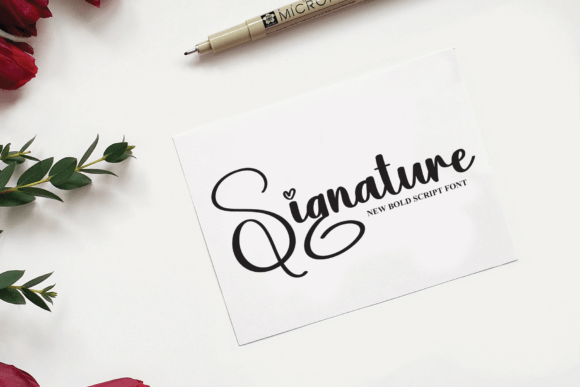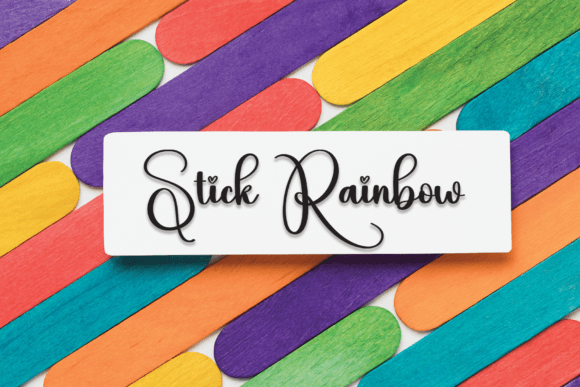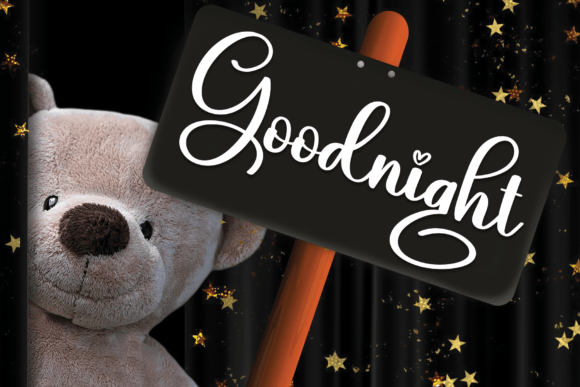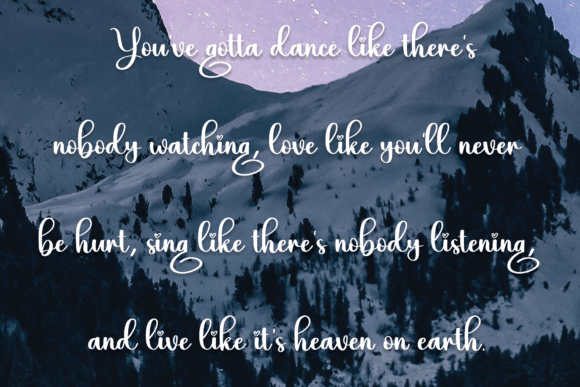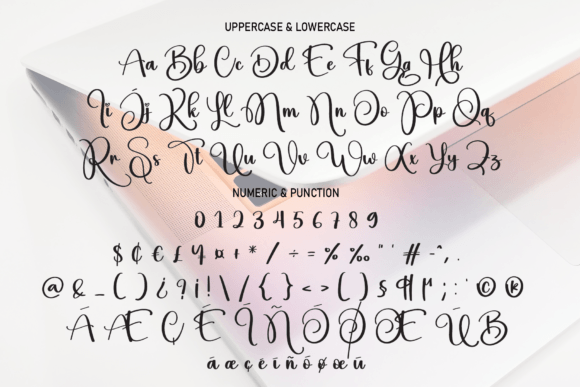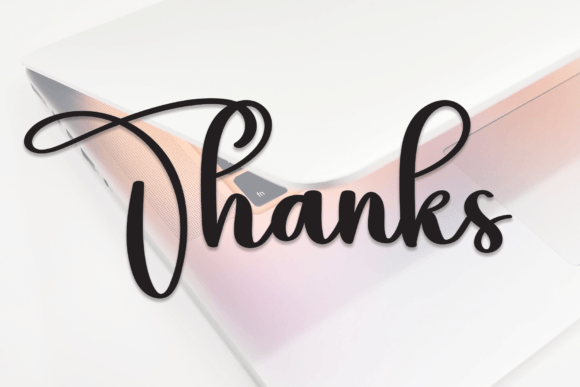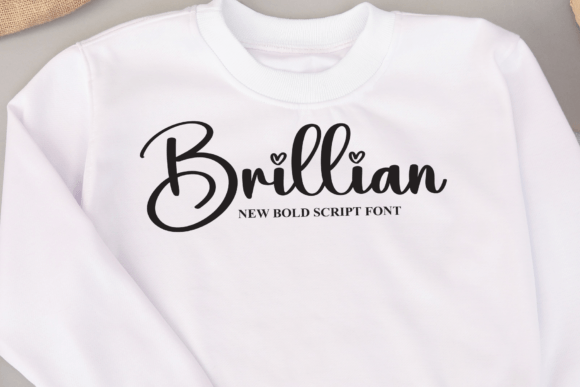
Digital Font
About Digital Font
Digital is a sweet and cursive handwritten font that adds a delightful touch to a variety of design ideas. With its gentle and romantic style, this font enhances the overall aesthetic of your projects, bringing a joyful and charming atmosphere. Digital is perfectly suited for branding, logos, wedding materials, greeting cards, fashion-related designs, lookbooks, marketing promotions, and any instance where you want to achieve a blend of fancy elegance and casual sophistication.
The sweet and cursive nature of Digital makes it an excellent choice for projects that require a touch of romance and whimsy. Whether you’re designing wedding invitations or creating a logo with a personal touch, Digital’s handwritten charm elevates the visual appeal.
Digital is versatile and fits seamlessly into various design contexts. From fashion-related projects to marketing promotions, the font adapts to the mood, always maintaining a balance between elegance and casual charm.
Whether it’s a branding endeavor or a promotional campaign, Digital brings a fanciful and yet casual elegance to your text. The font’s handwritten style adds warmth and individuality, making it ideal for projects where a personal and inviting touch is desired.
In summary, Digital is more than just a font; it’s a design asset that brings a sweet and cursive charm to your projects. Whether you’re creating wedding materials, fashion-related designs, or marketing promotions, Digital adds a joyful and romantic touch, making your designs stand out with a perfect blend of fancy elegance and casual allure.